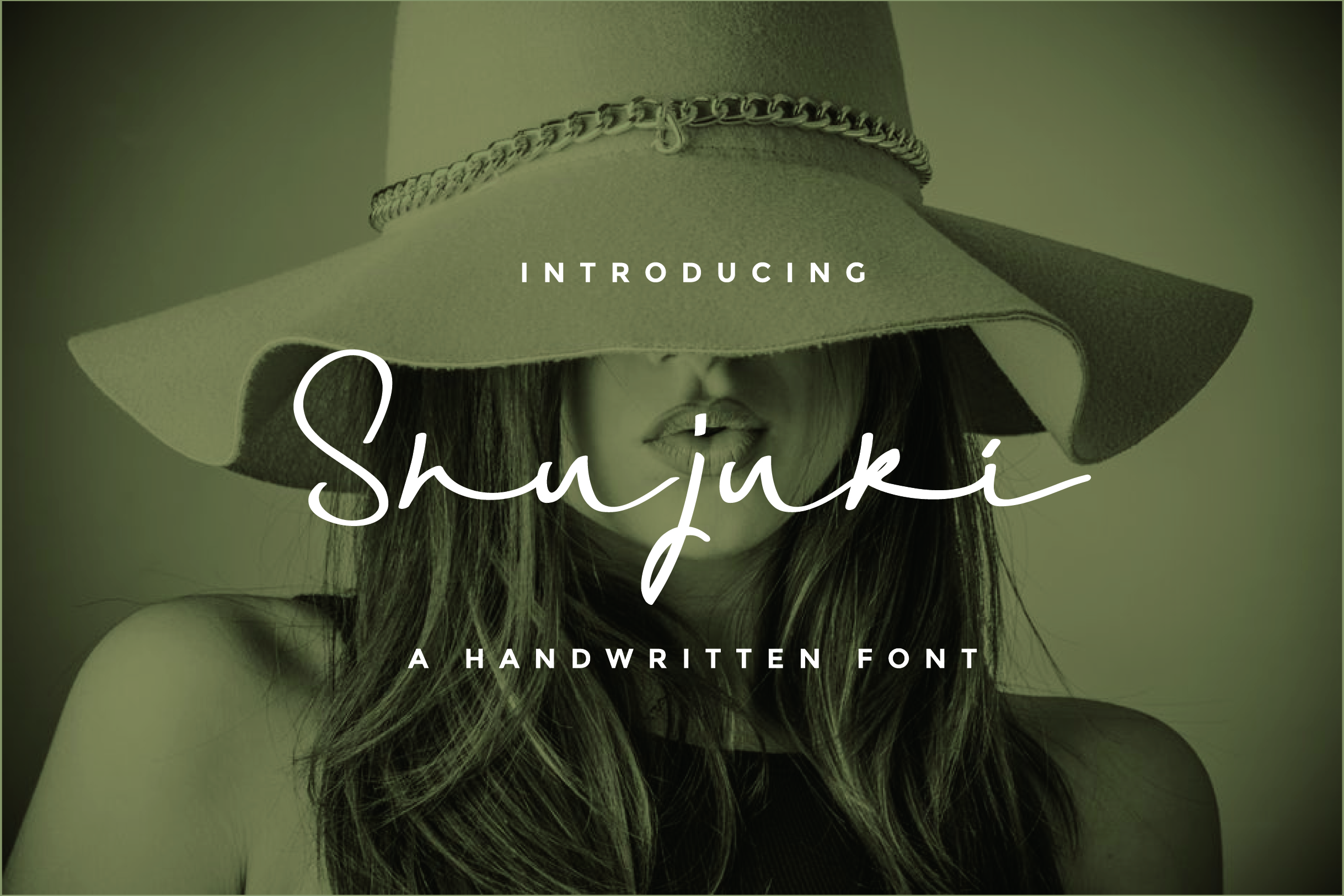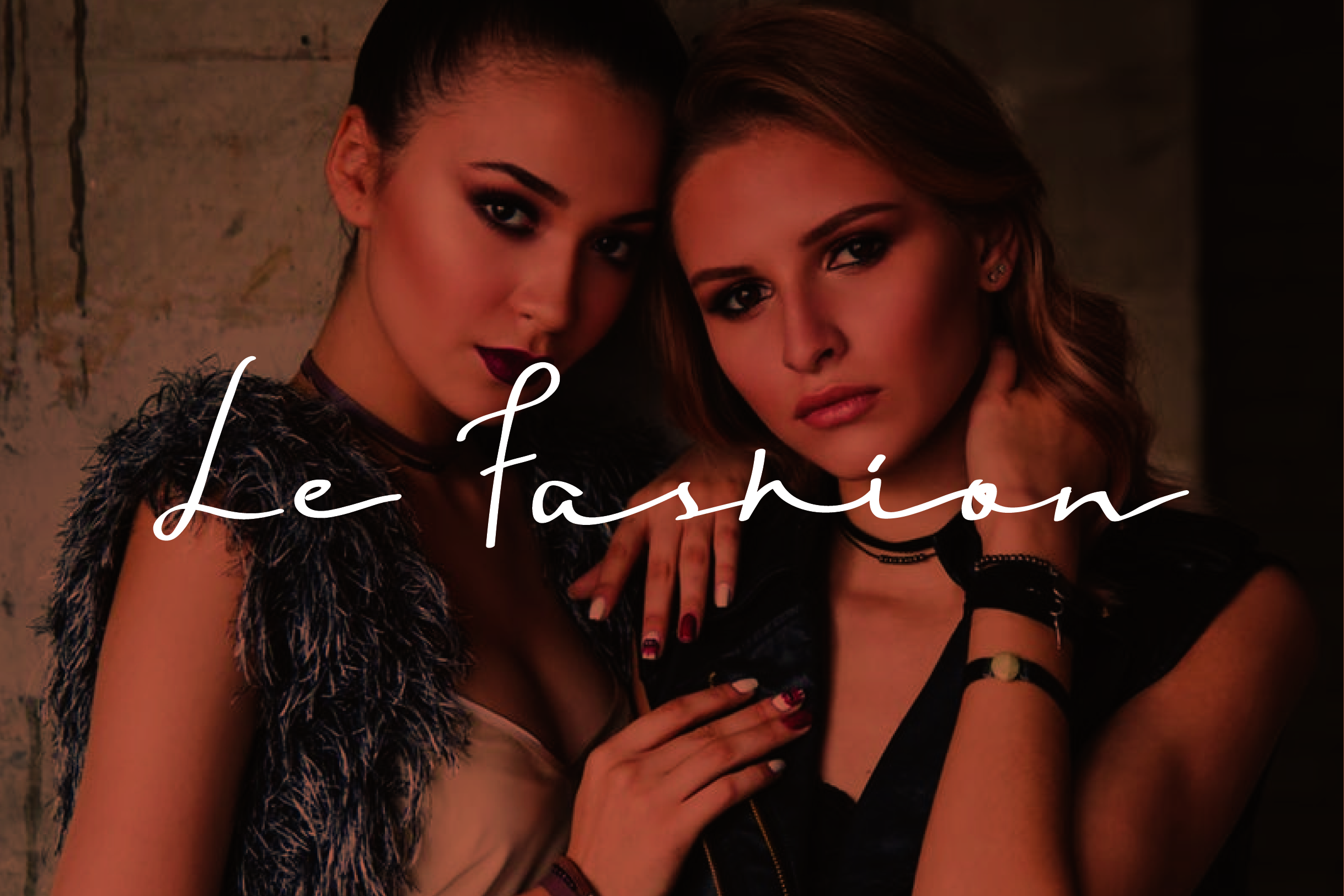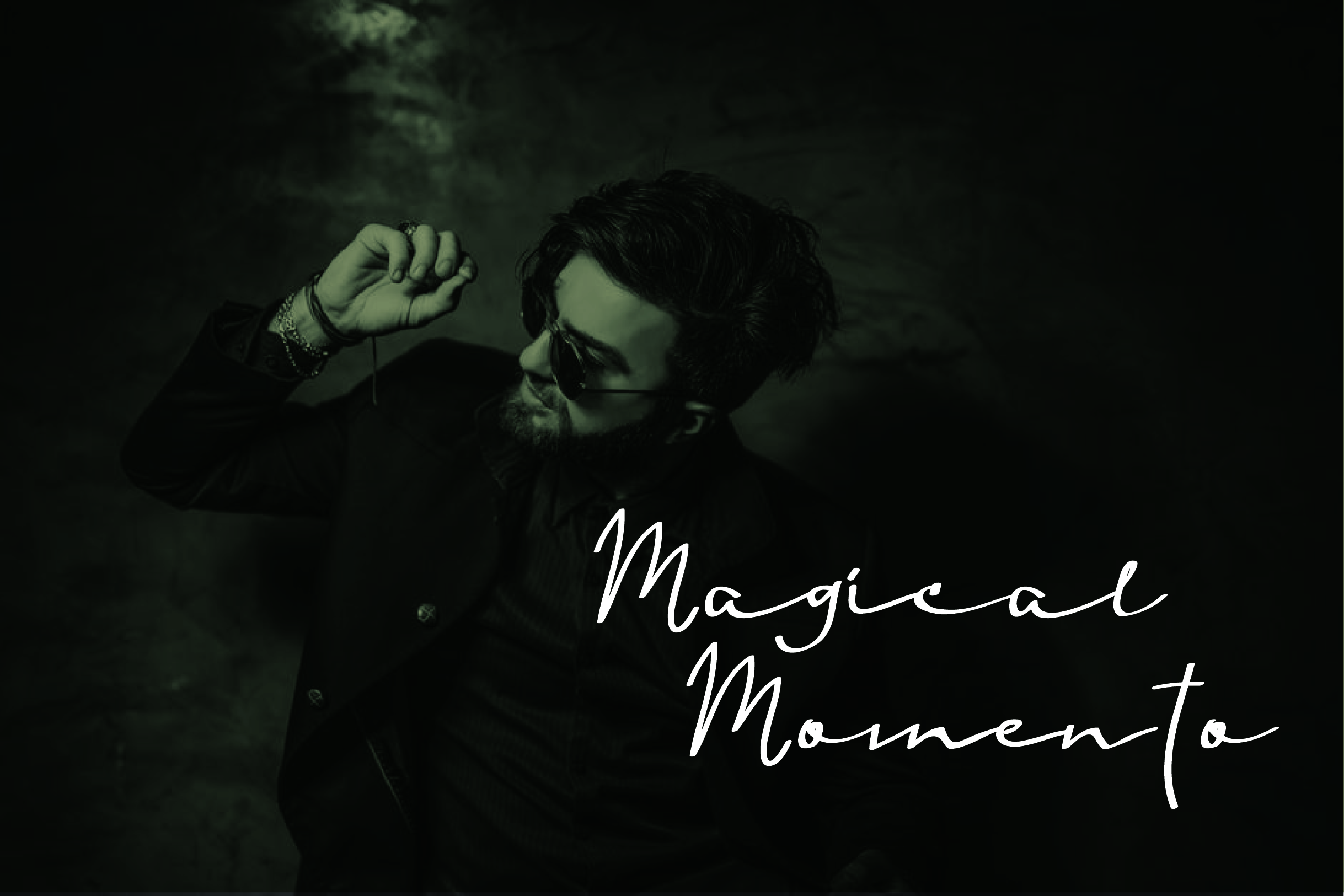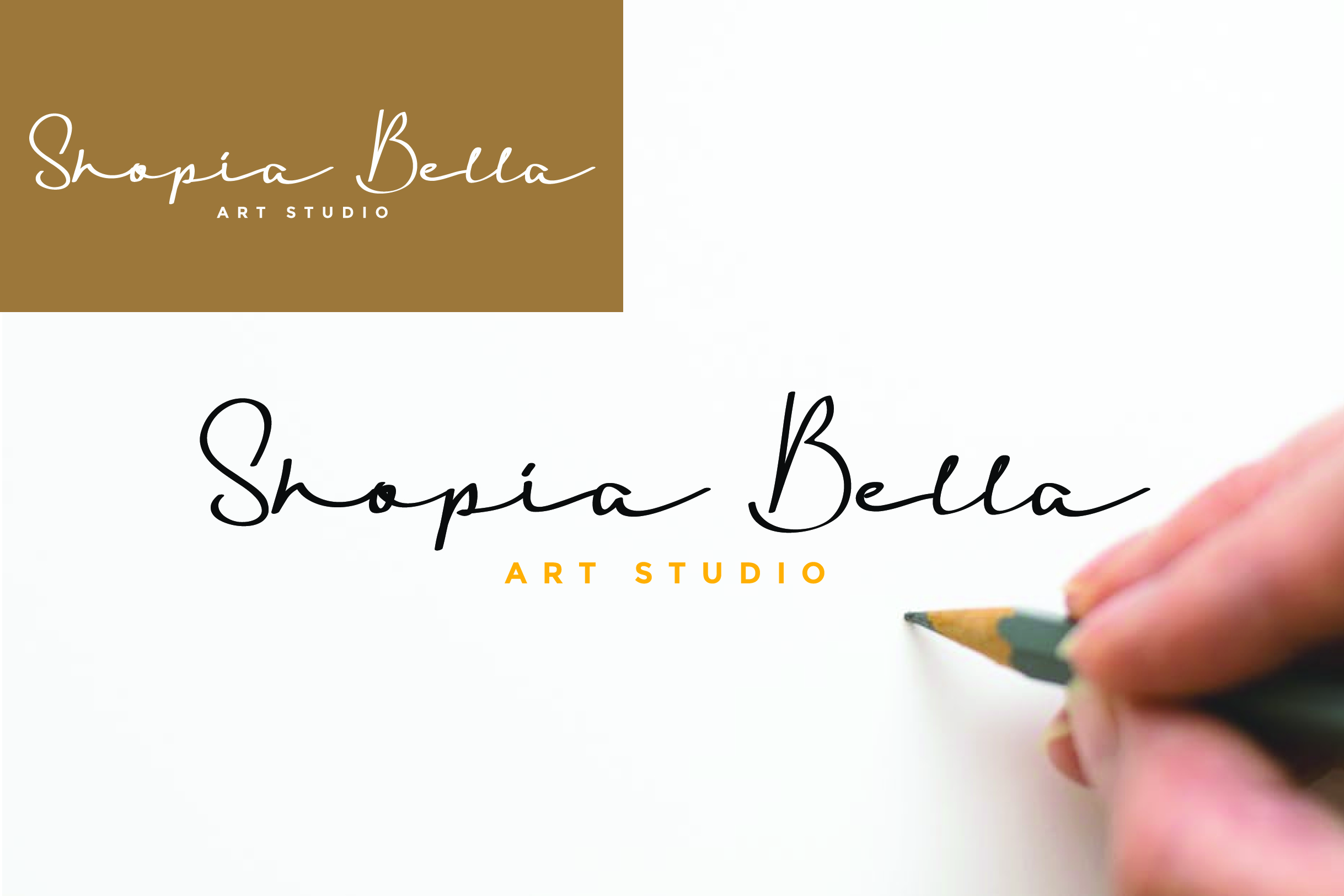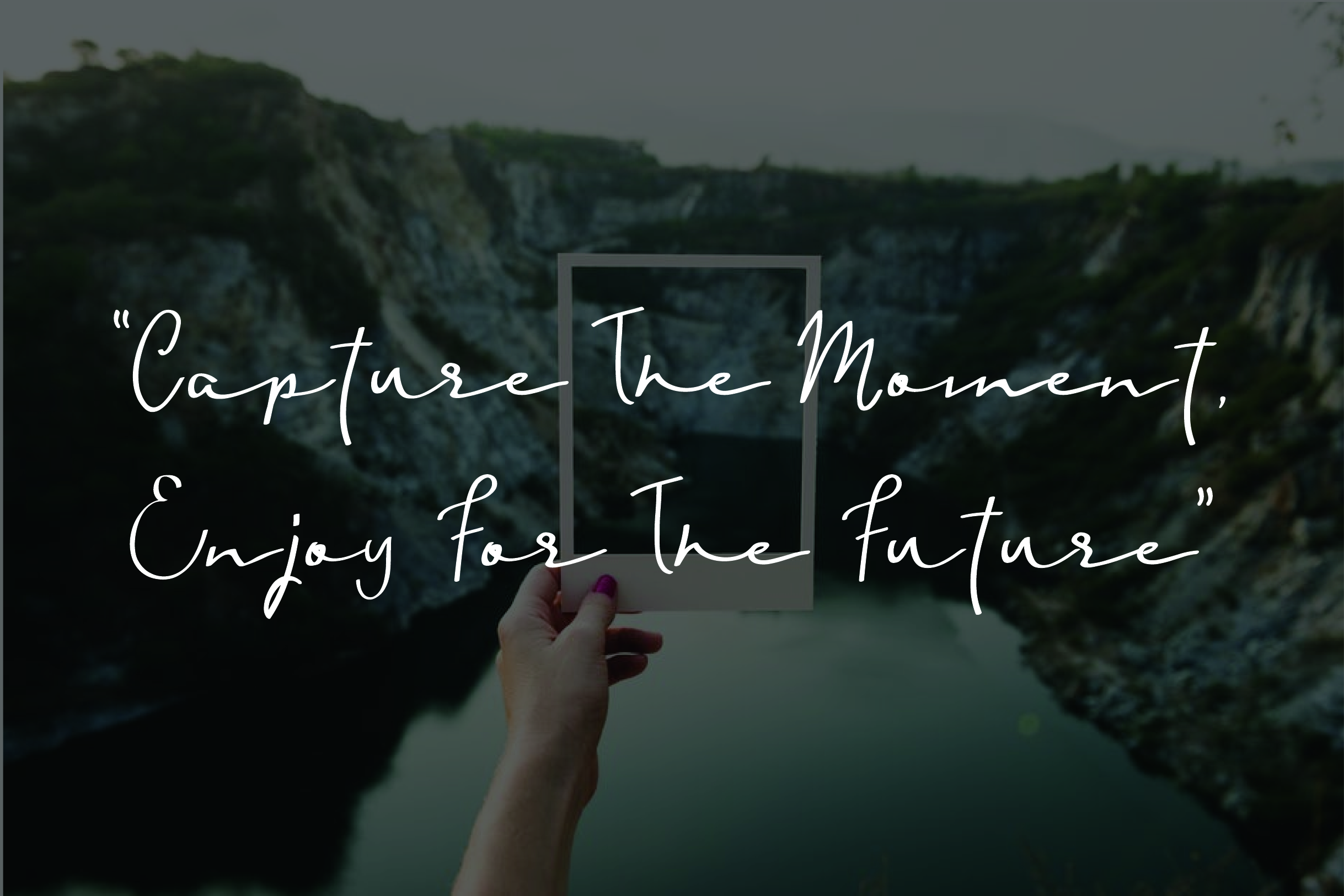
Shujuki Font
About Shujuki Font
Shujuki is a elegant handwritten font.
The Shujuki font is perfect for fashion, editorials, magazines, e-commerce and much more. It’s classy letters make it also great for fashion an apperal.